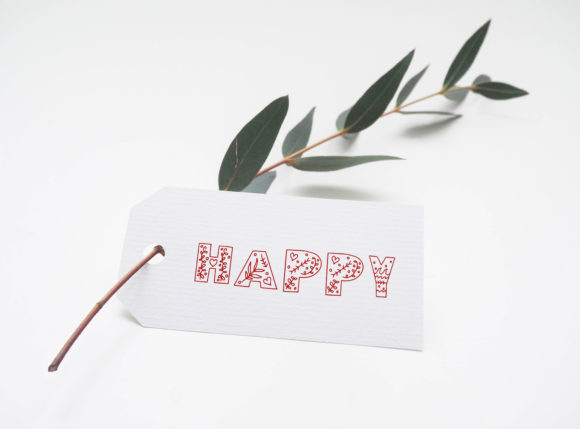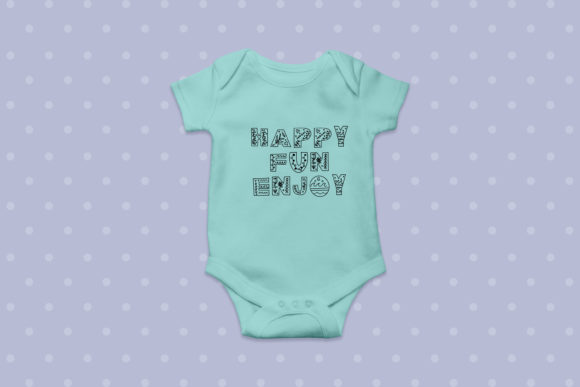
Introduction to Scandinavian Fun Font
Scandinavian Fun is a cute and simple lettered decorative font that can be used for all chalkboard quotes or teaching material.
Its authentic look will add a personal and realistic feel to your designs .